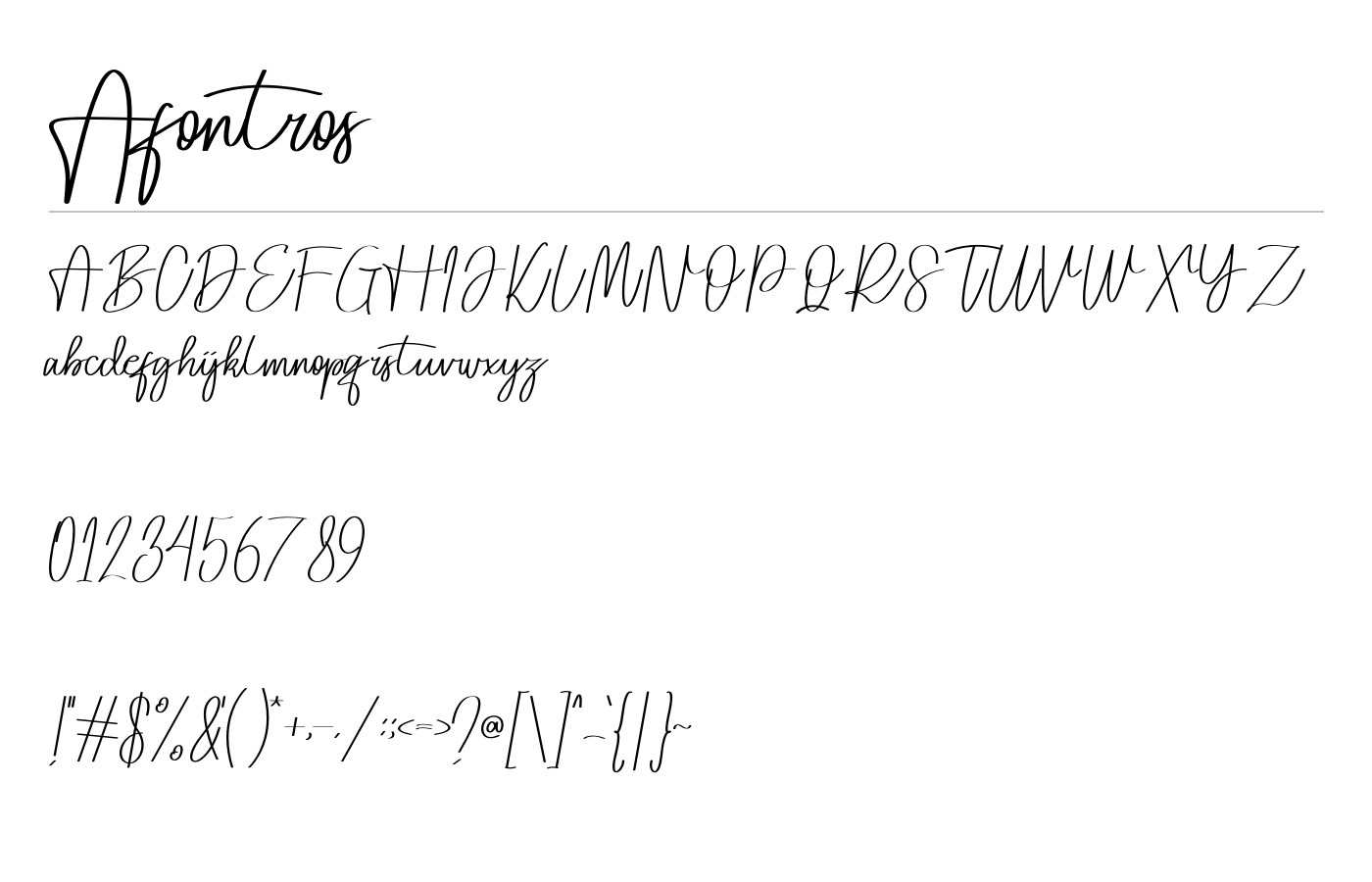
Afontros is a delicate, elegant script font with a handwritten feel, featuring slender, flowing letterforms and a light weight. Its tall, narrow characters and graceful curves give it a sophisticated, airy personality, making it ideal for luxury branding, wedding invitations, and stylish editorial headlines where a refined, personal touch is desired. The font's unique blend of casual charm and elegance works beautifully in designs that seek to convey warmth and artistic flair.
Afontros Font
About Afontros Font